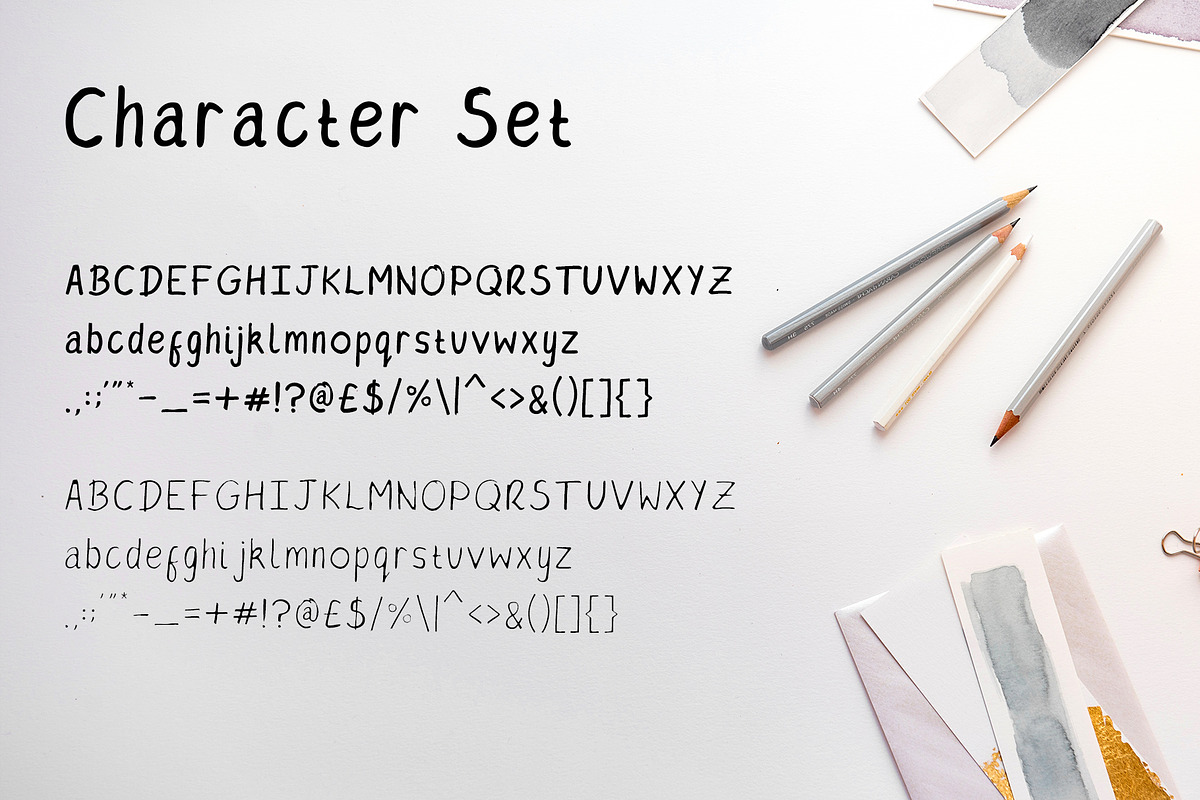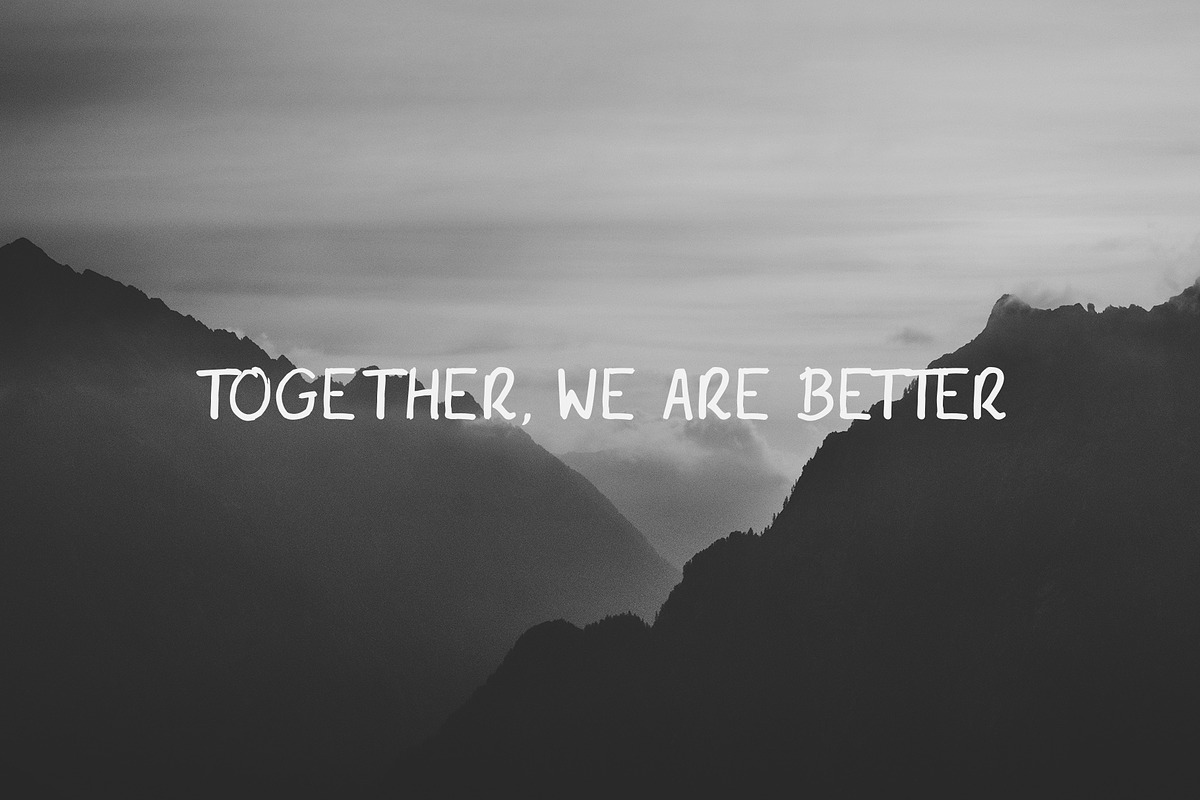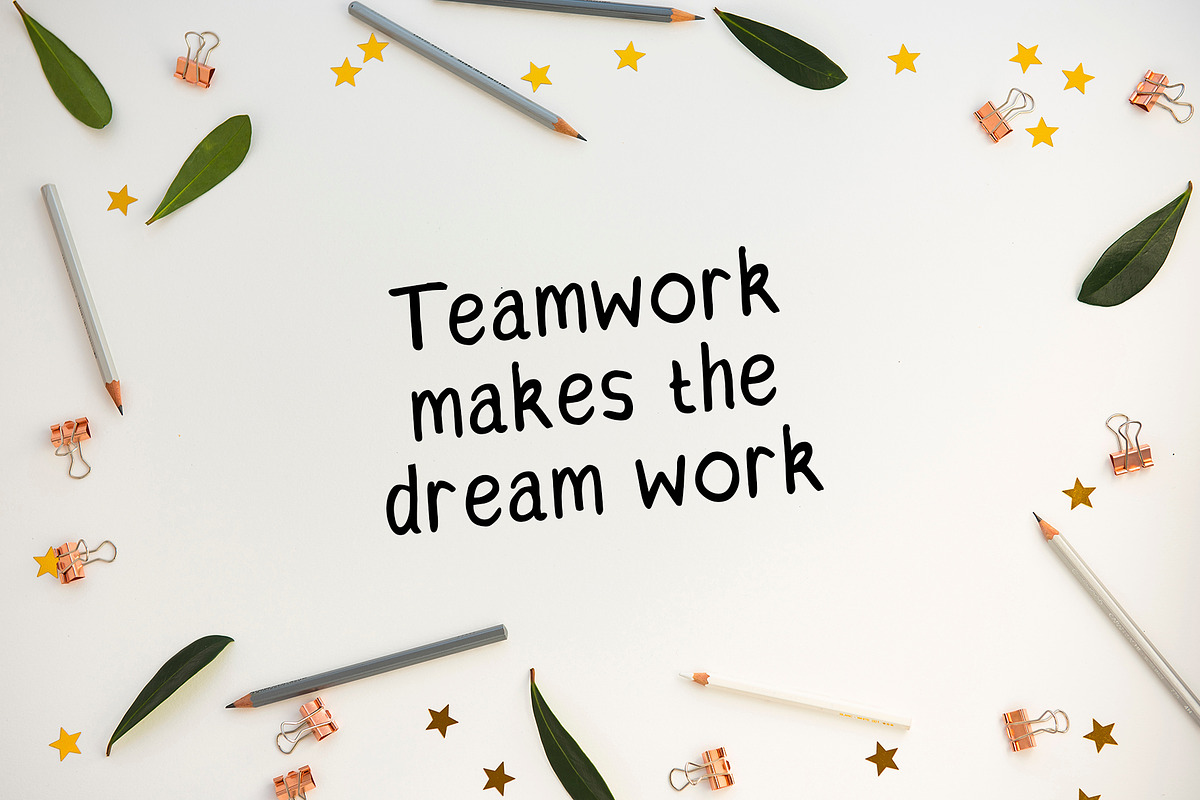
Harmony - Handwritten Font
Introducing; Harmony! a beautiful and authentic handwritten-styled font.
Based on my girlfriends handwriting, Harmony has a quirky attitude, with slight kinks here and there to give it a personalised appearance.
'Regular' and 'Light' weight styles